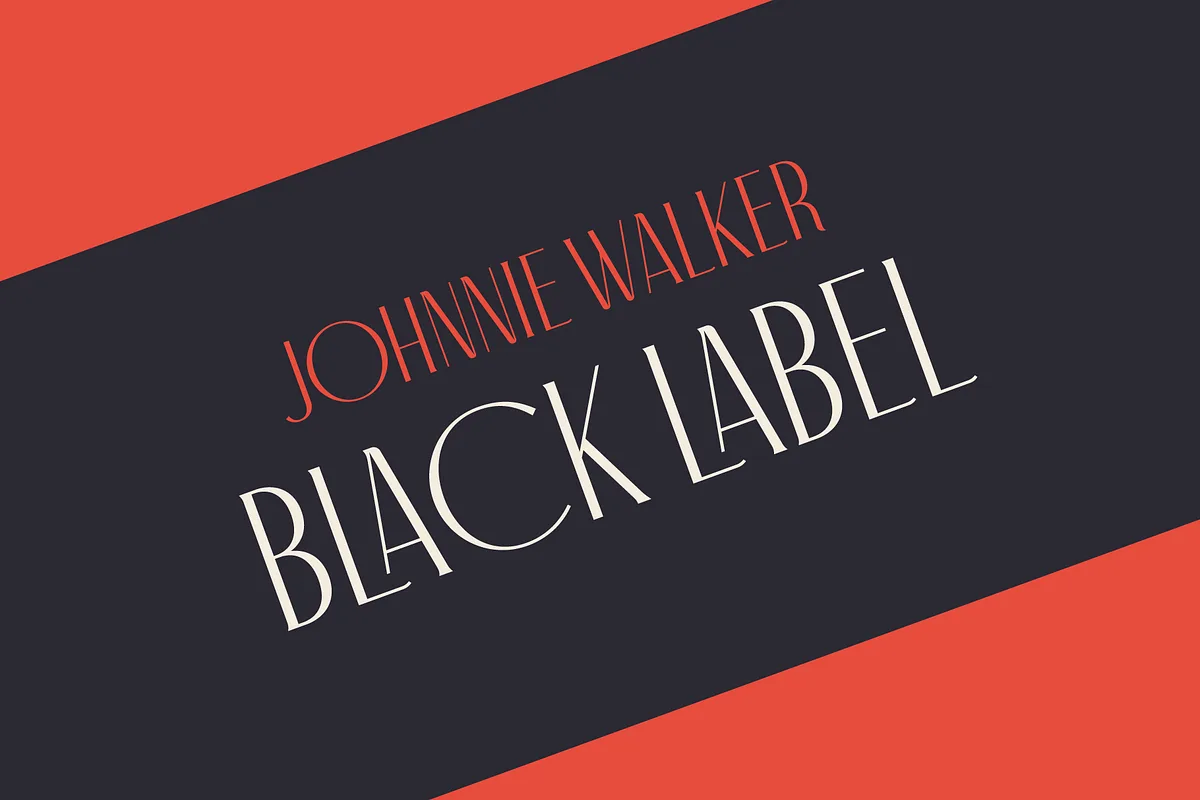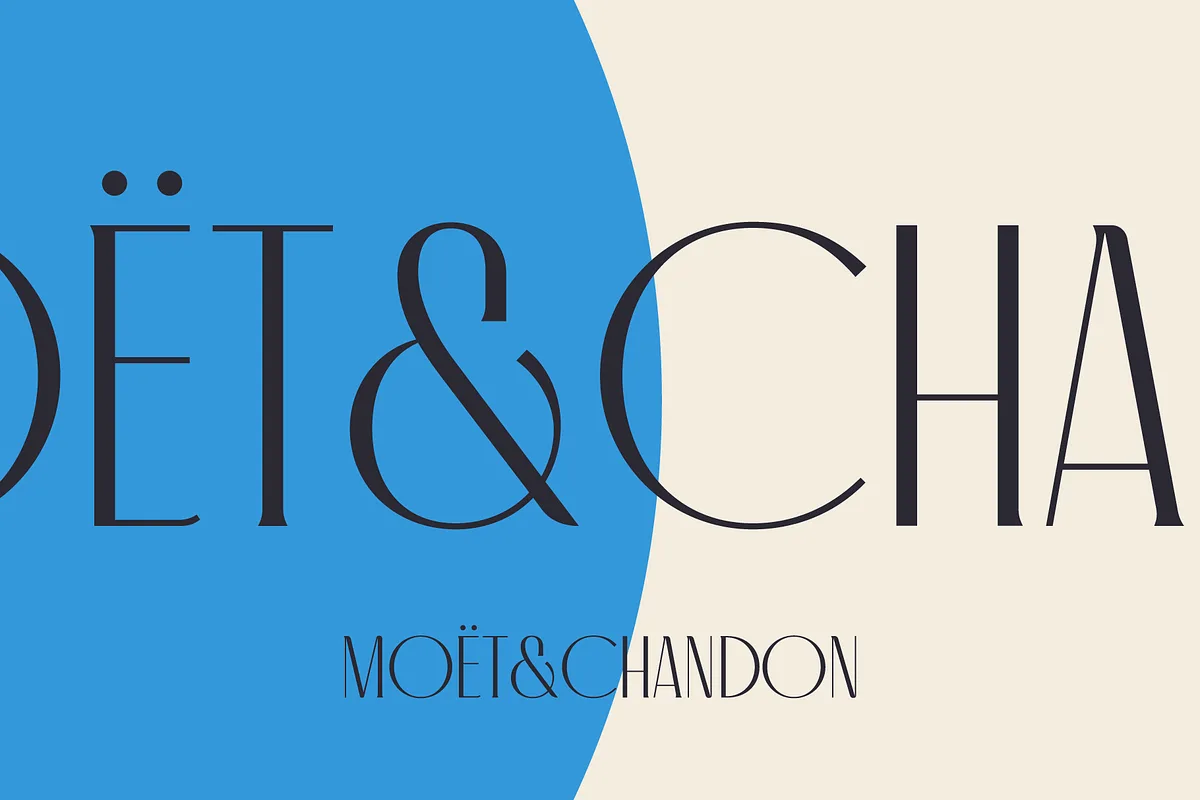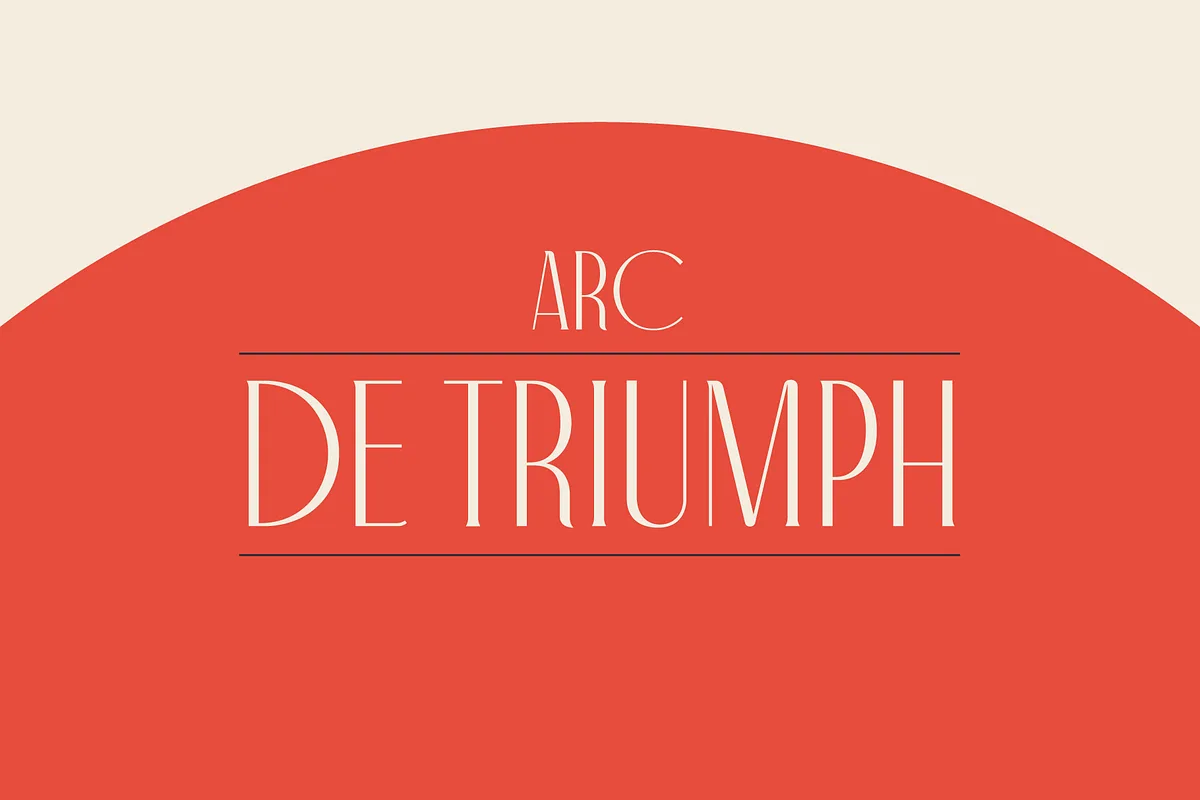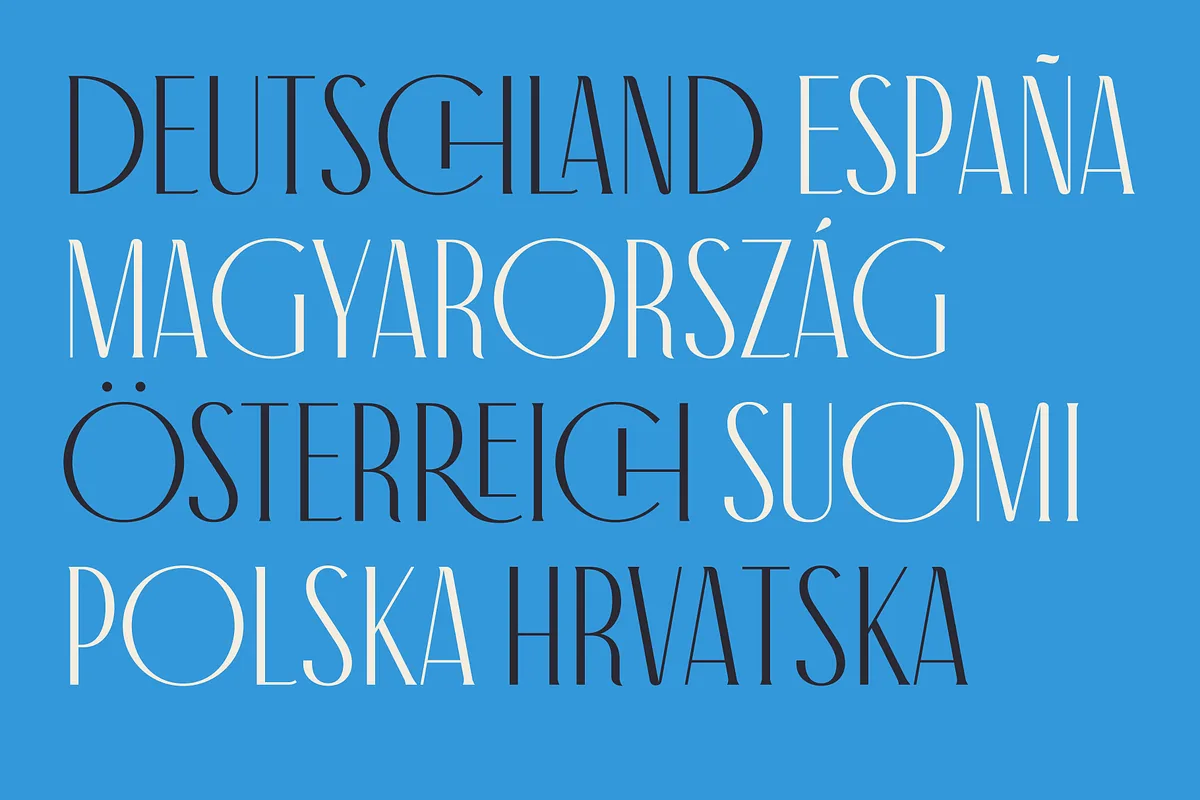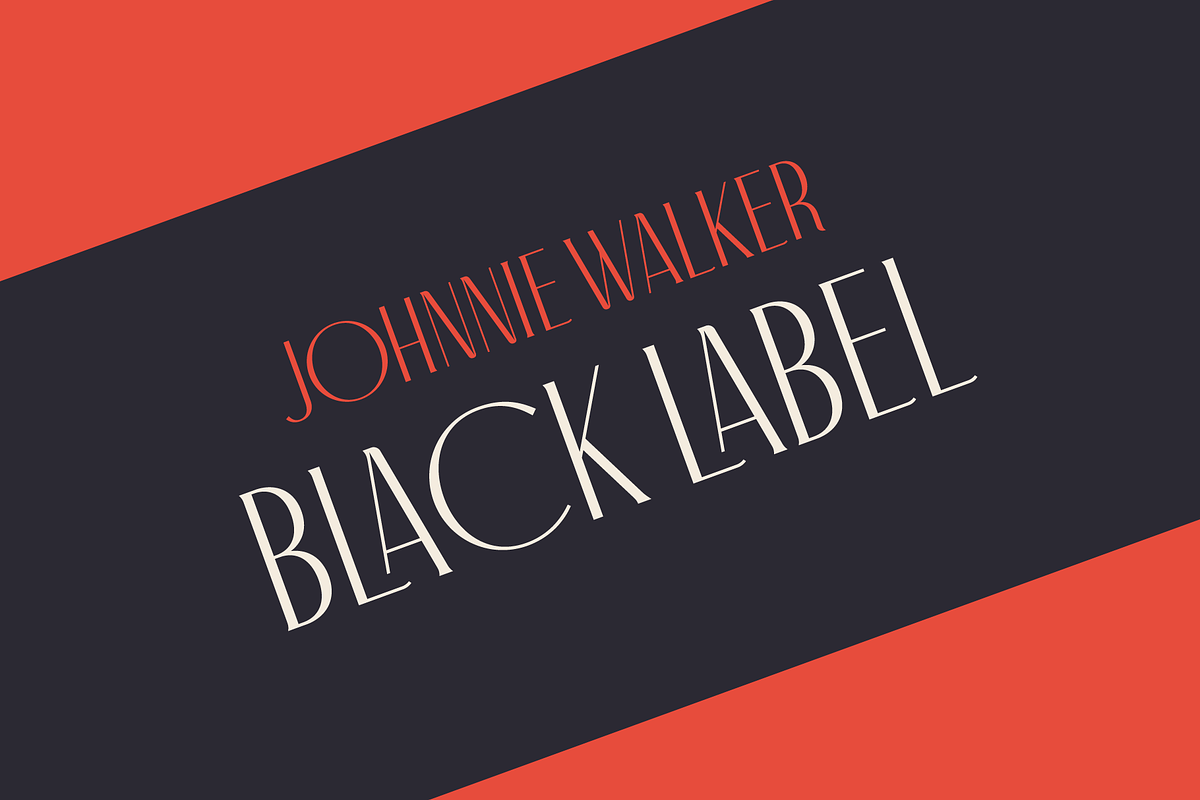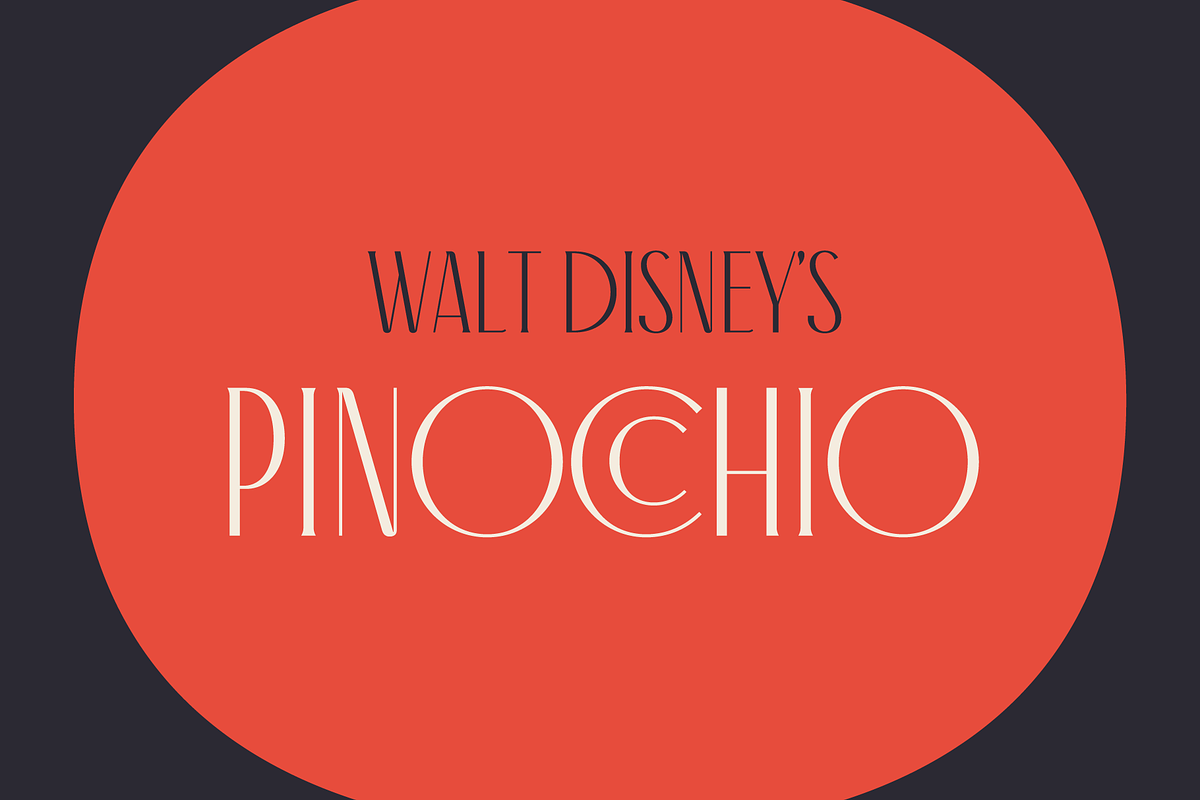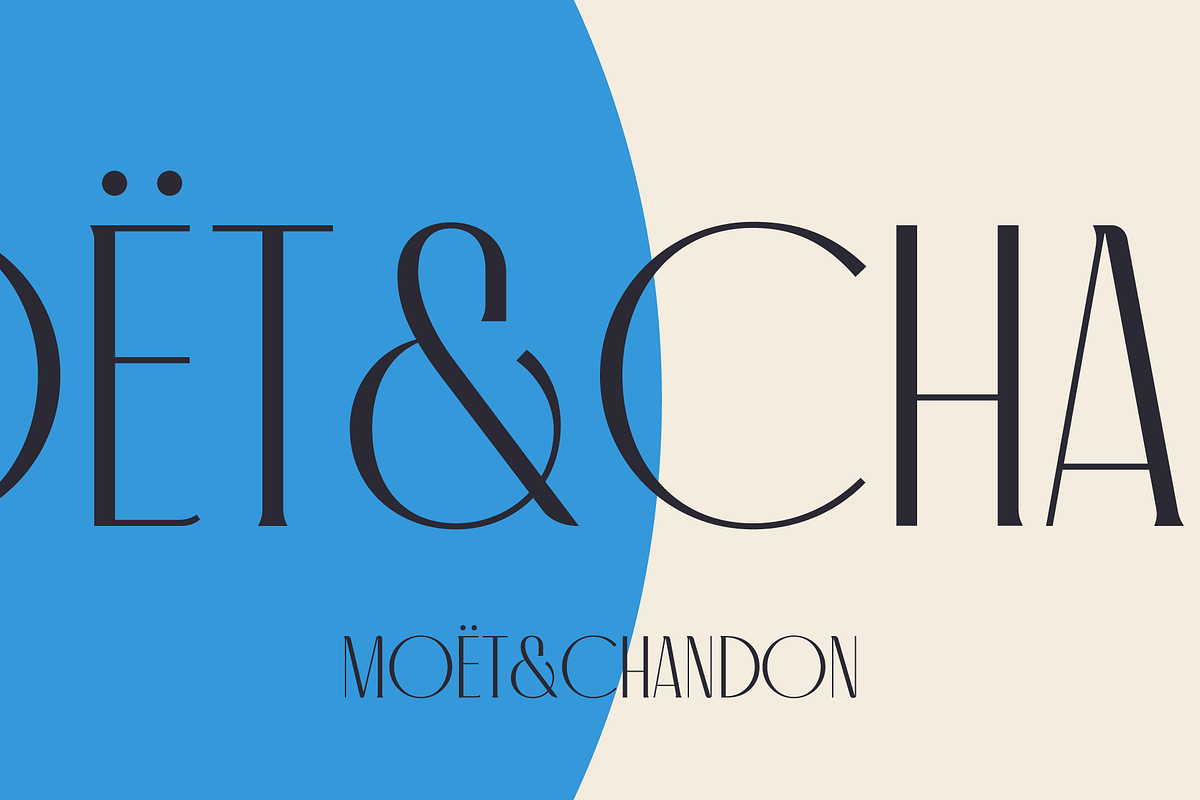
Antiga is an old style typeface with an elegant and modern touch, it is ideal for magazines and newspaper headlines, or even book covers! With a delightful and versatile amount of ligatures and diacritics, Antiga will give your text a unique personality.